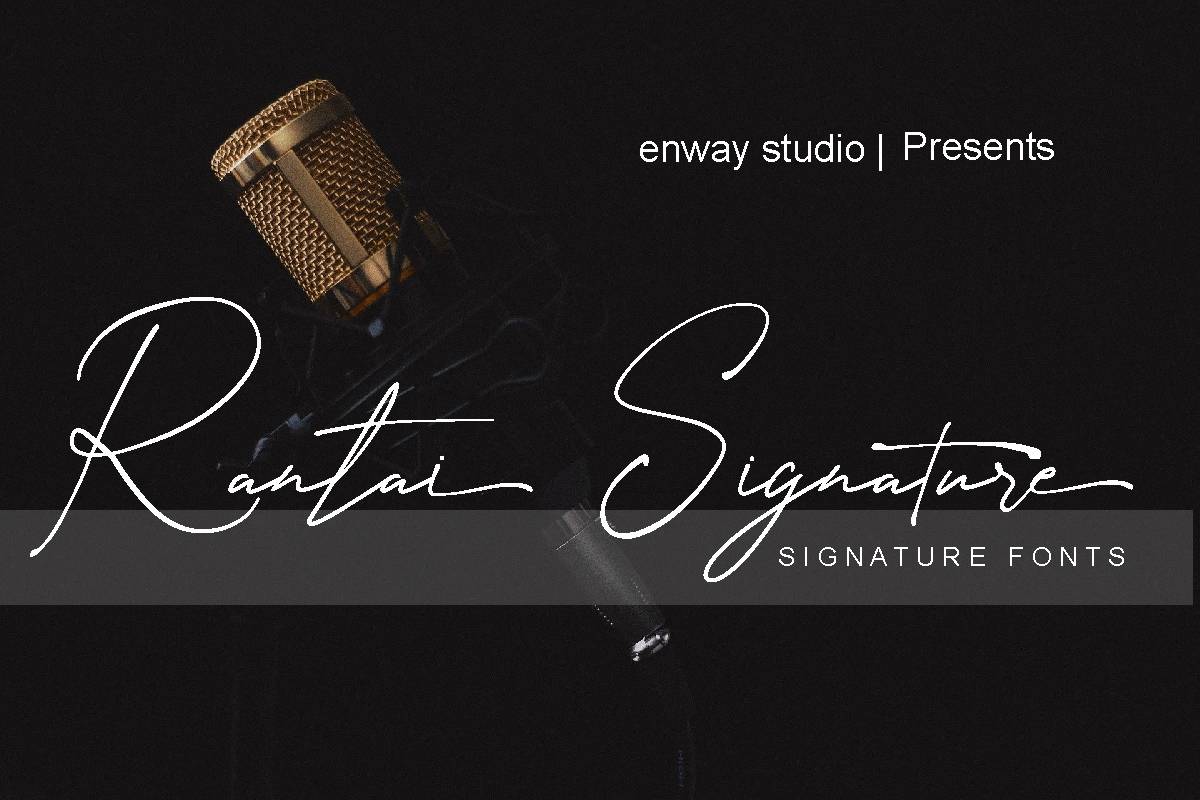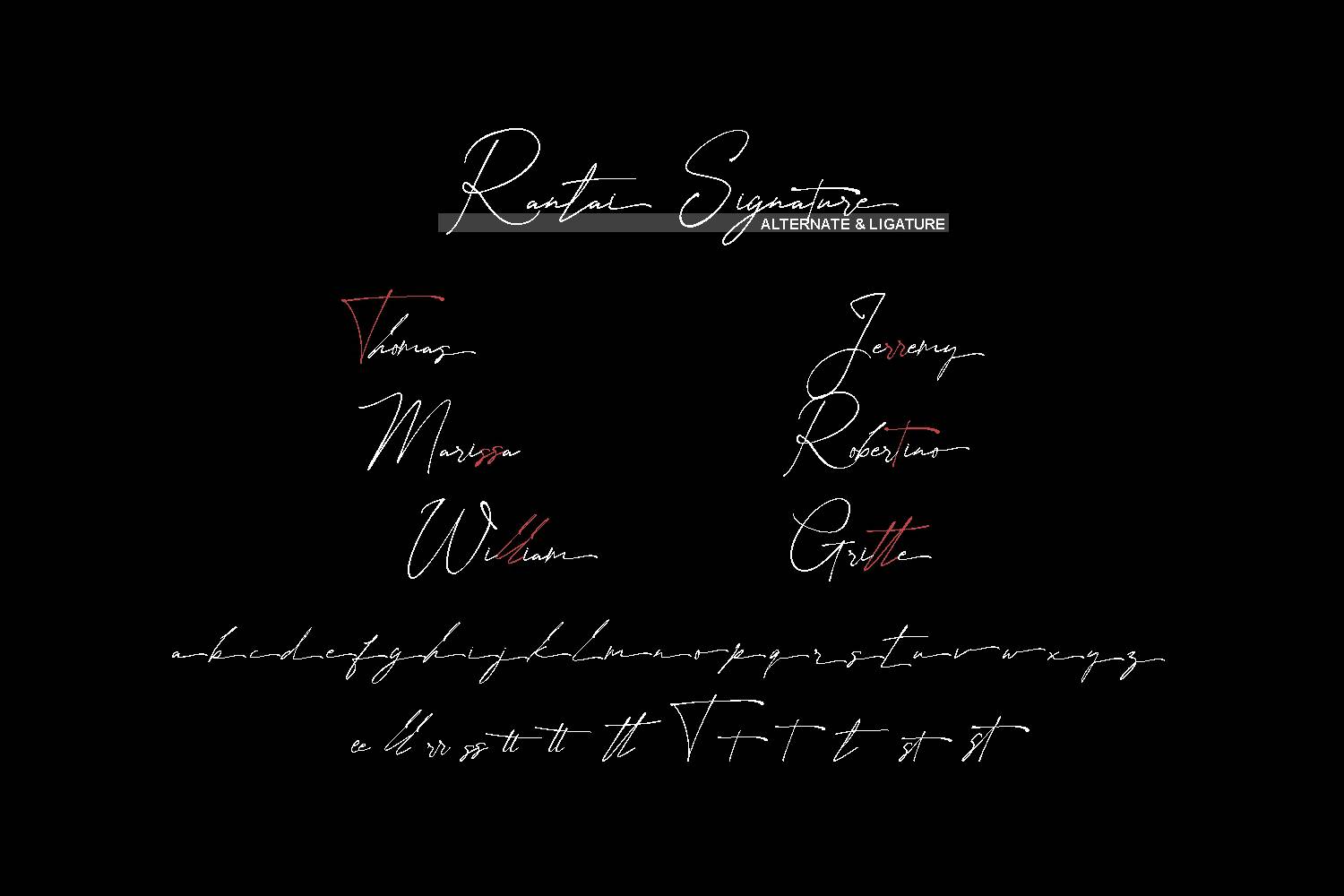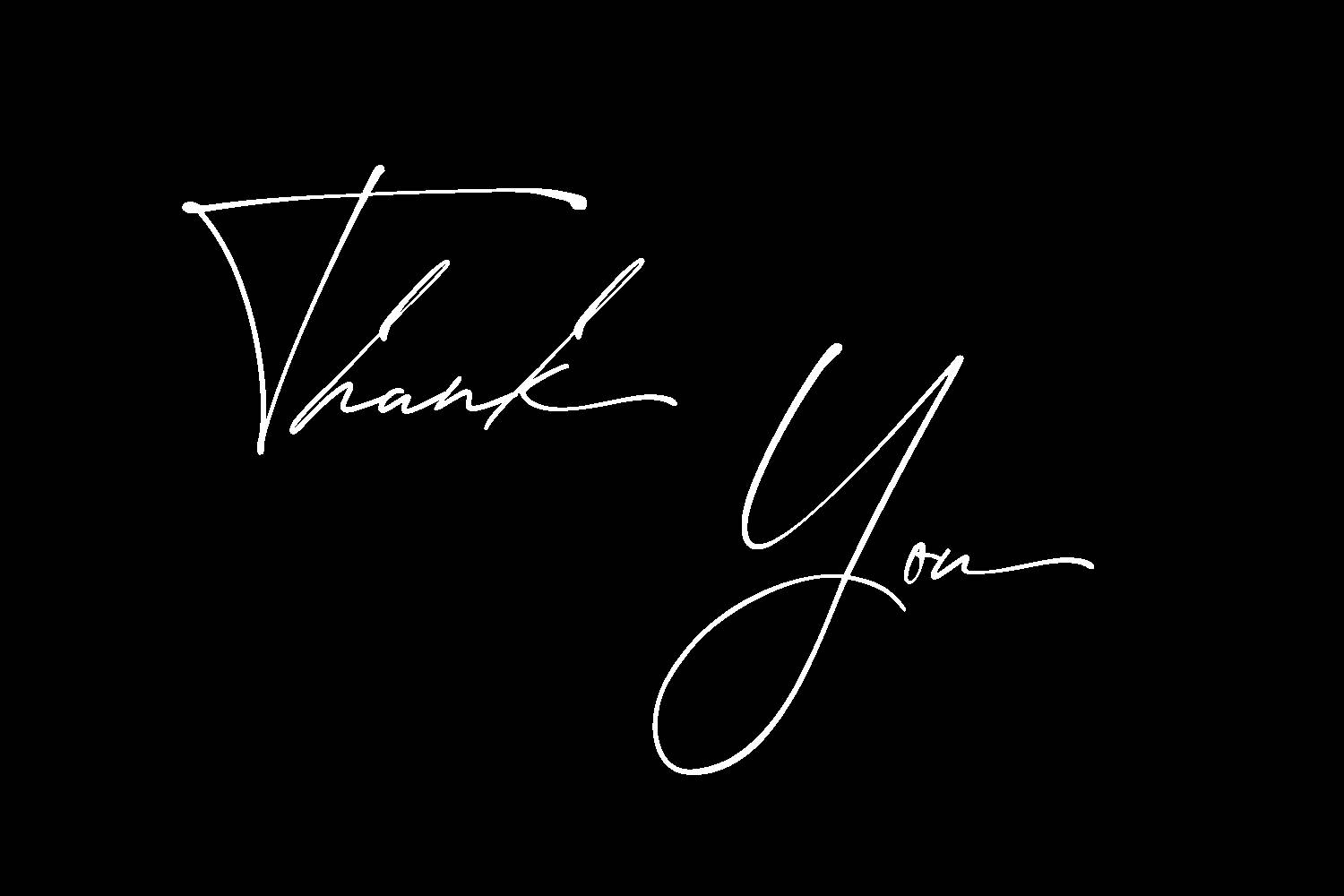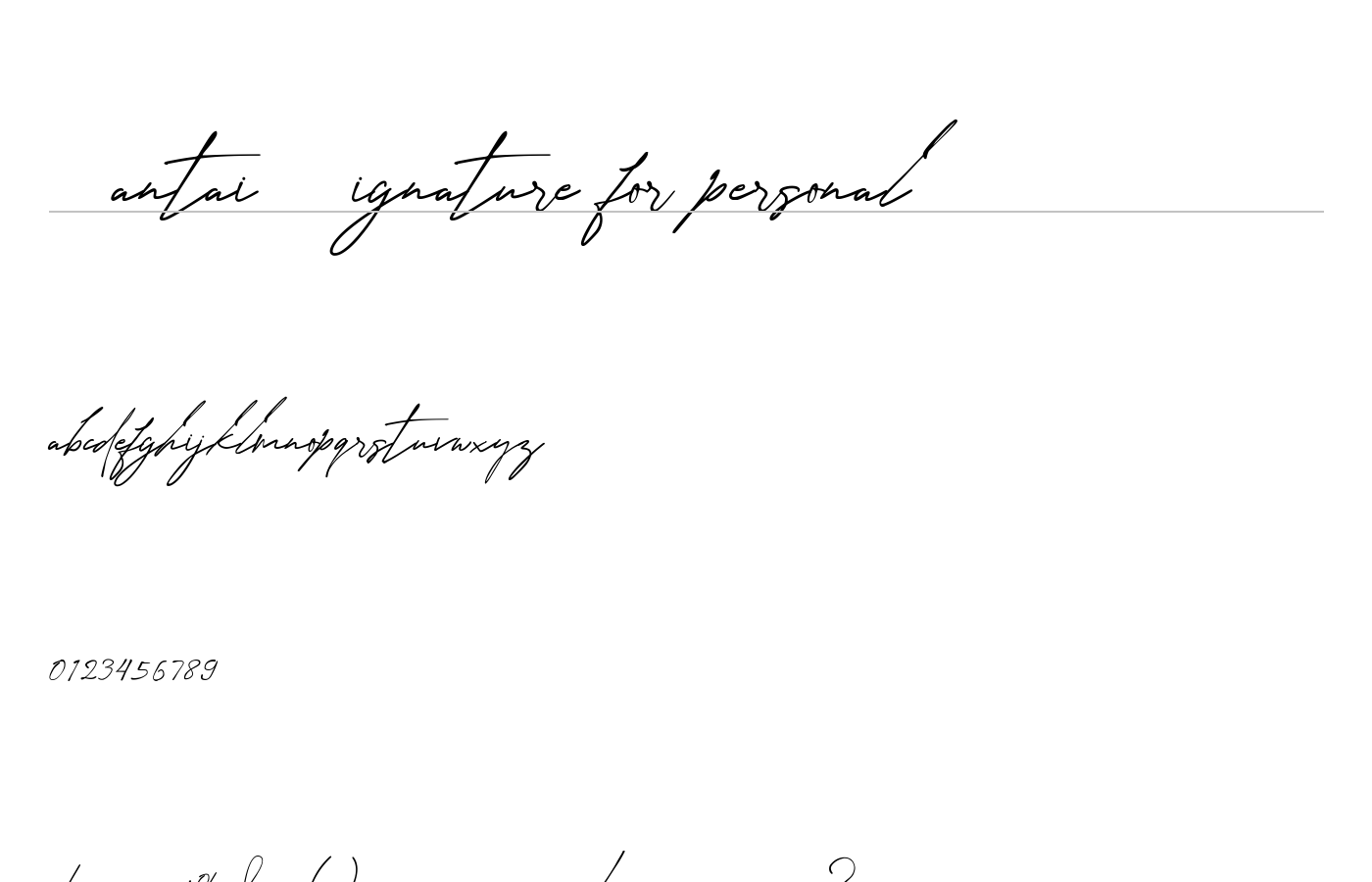
Rantai Signature Font is a delicate and elegant script font that mimics natural handwriting with smooth, flowing lines and a slender, airy feel. Its fine strokes and graceful connections give it a personal and sophisticated touch, making it ideal for luxury branding, invitations, and personal logos where a refined, handwritten style is desired. This font works best in designs that aim to convey elegance and a sense of individuality with a modern, artistic flair.
Rantai Signature Font
About Rantai Signature Font
| Font family | Rantai Signature Font |
| Designer | Andri Nuryadin (enway studio) |